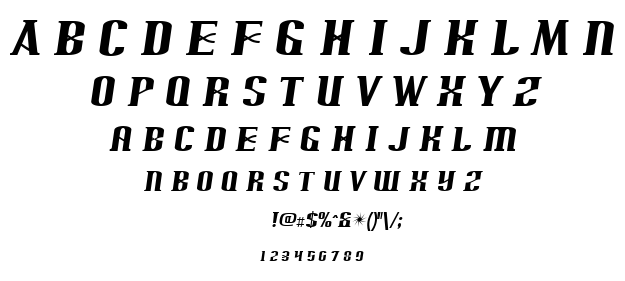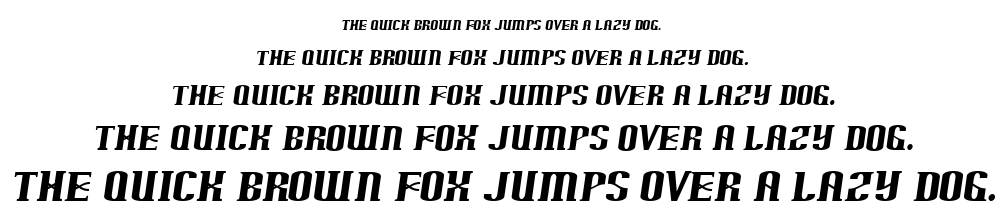
Arnprior is an modular exploration of ornament in lieu of strokes. Wavy crossbars imbue your works with catchy rhythmic hooks. Don’t forget to read the files inside the zip for details. Updated in 2012.